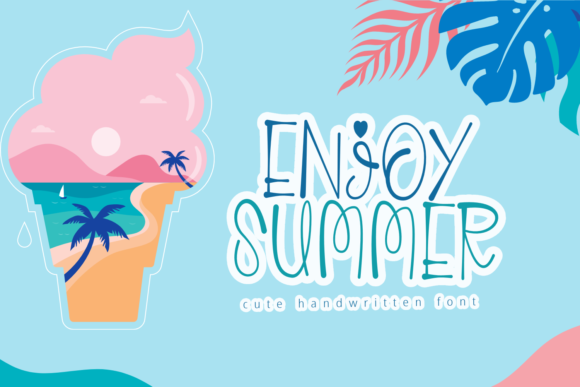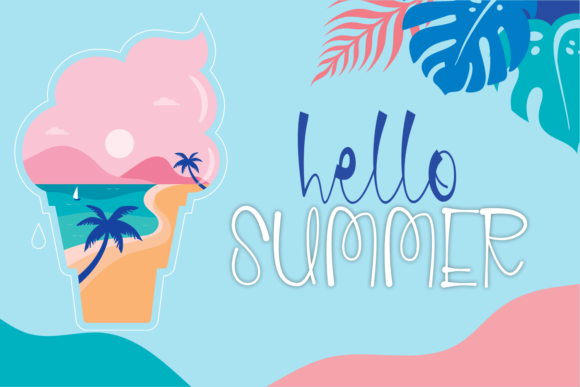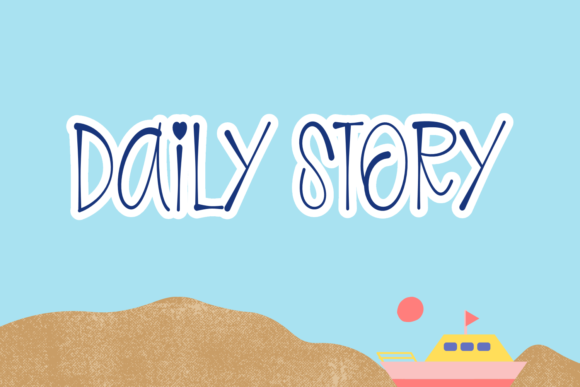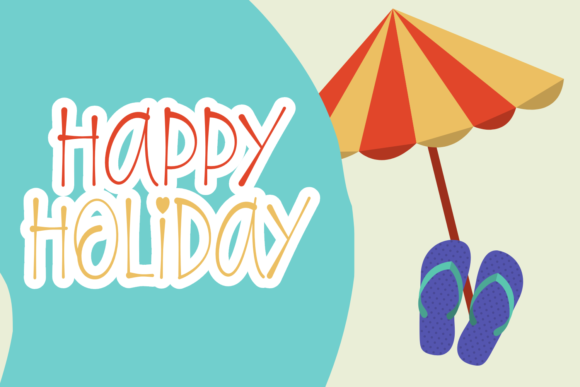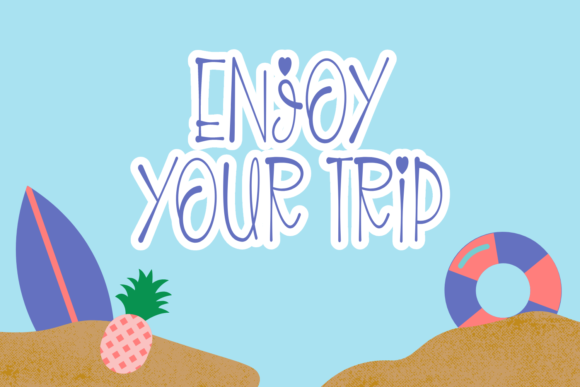
Enjoy Summer Font
About Enjoy Summer Font
Enjoy Summer is a cute and relaxed handwritten font. Whether you’re looking for fonts for Instagram or calligraphy scripts for DIY projects, this font will turn any creative idea into a true piece of art!